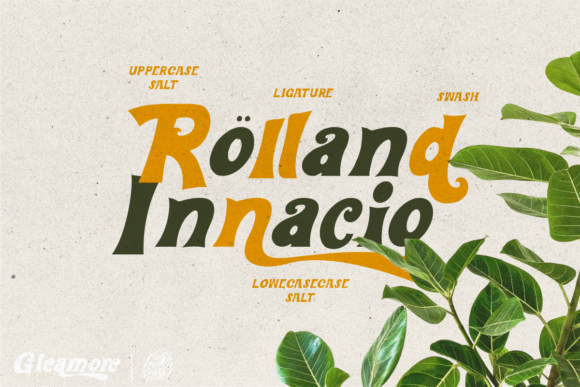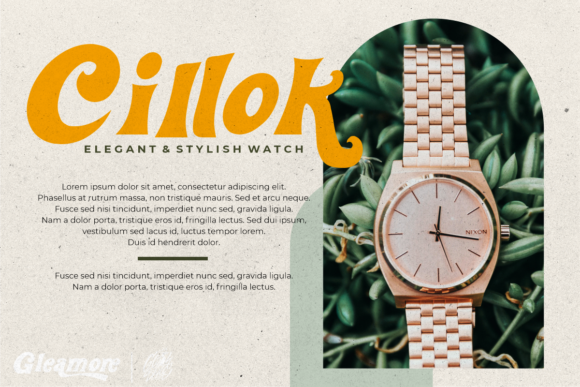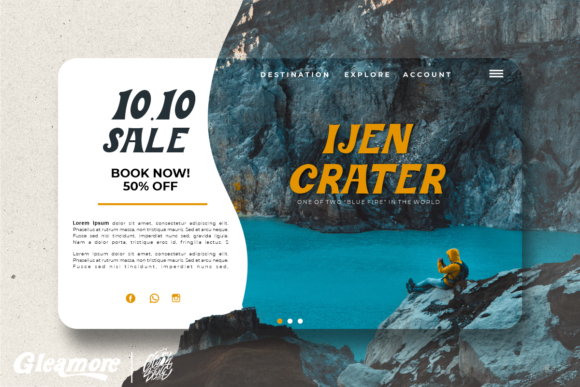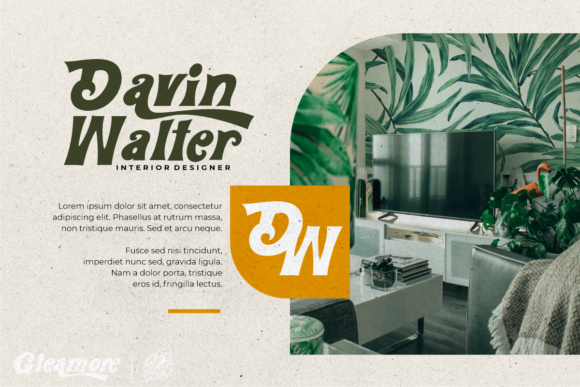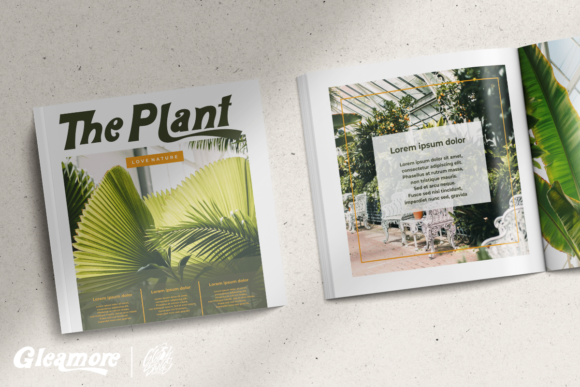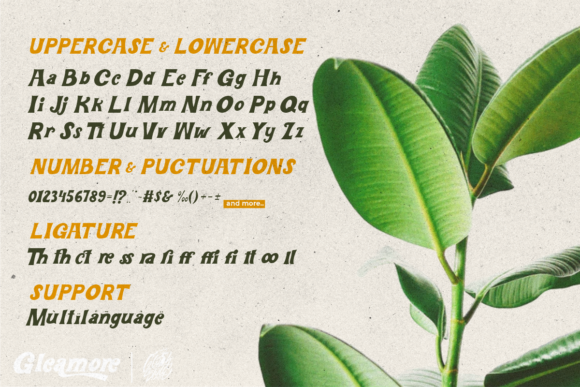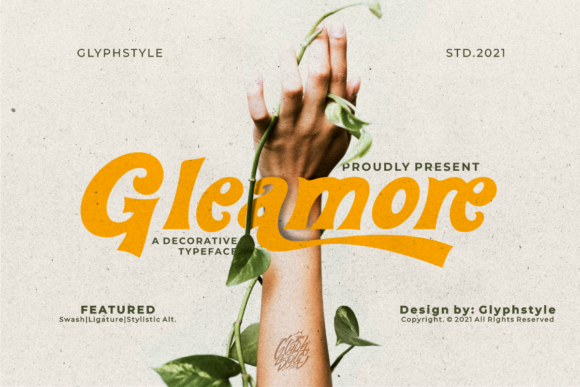
Gleamore Font: Elevate Your Designs with Confidence and Charm
In the world of typography, fonts play a crucial role in conveying messages, expressing emotions, and creating lasting impressions. For designers, crafters, and creative enthusiasts, finding the perfect font can be a daunting task. However, if you’re looking for a bold, chic, and authentic display font, look no further than Gleamore Font. In this article, we’ll explore the features, benefits, and uses of Gleamore Font, and why it’s a must-have for your design arsenal.
What is Gleamore Font?
Gleamore Font is a stunning display font that’s designed to deliver messages with confidence, authenticity, and charm. Its bold and chic appearance makes it perfect for headlines, titles, and promotional materials. Whether you’re a designer, crafter, or business owner, Gleamore Font is an excellent choice for anyone looking to add a touch of elegance and sophistication to their designs.
Key Features of Gleamore Font
- PUA Encoded: Gleamore Font is PUA (Private Use Area) encoded, which means you can access all glyphs and swashes with ease. This feature allows you to unlock the full potential of the font and experiment with various design elements.
- Bold and Chic: Gleamore Font boasts a bold and chic appearance that’s perfect for making a statement. Its unique design ensures that your message will stand out from the crowd and leave a lasting impression.
- Versatile: Gleamore Font is incredibly versatile and can be used for a wide range of design projects, from logos and branding to posters, flyers, and social media graphics.
Benefits of Using Gleamore Font
So, why should you choose Gleamore Font for your design projects? Here are just a few benefits of using this amazing font:
- Save Time: With Gleamore Font, you can create stunning designs in no time. Its bold and chic appearance ensures that your message will be conveyed quickly and effectively.
- Stand Out: In a world where designs are constantly competing for attention, Gleamore Font helps you stand out from the crowd. Its unique design ensures that your message will be noticed and remembered.
- Easily Customizable: Gleamore Font is easy to customize, allowing you to experiment with different design elements and create a unique look that suits your brand or style.
Who Can Use Gleamore Font?
Gleamore Font is perfect for a wide range of designers, crafters, and creative enthusiasts, including:
- Graphic Designers: Gleamore Font is an excellent choice for graphic designers looking to create stunning visual content for their clients.
- Crafters: Crafters and DIY enthusiasts can use Gleamore Font to add a touch of elegance and sophistication to their craft projects.
- Business Owners: Business owners can use Gleamore Font to create professional-looking promotional materials, such as brochures, flyers, and social media graphics.
How to Use Gleamore Font?
- Experiment with Different Sizes: Gleamore Font looks great in large and small sizes, so don’t be afraid to experiment with different font sizes to find the perfect fit for your design.
- Pair with Other Fonts: Gleamore Font pairs well with other fonts, so try combining it with different font styles to create a unique and visually appealing design.
- Use Swashes and Glyphs: With Gleamore Font’s PUA encoding, you can access a wide range of swashes and glyphs to add an extra touch of elegance and sophistication to your designs.
In conclusion, Gleamore Font is an exceptional display font that’s perfect for designers, crafters, and creative enthusiasts looking to add a touch of confidence, authenticity, and charm to their designs. With its bold and chic appearance, PUA encoding, and versatility, Gleamore Font is a must-have for any design project. So why wait? Download Gleamore Font today and start creating stunning designs that leave a lasting impression!